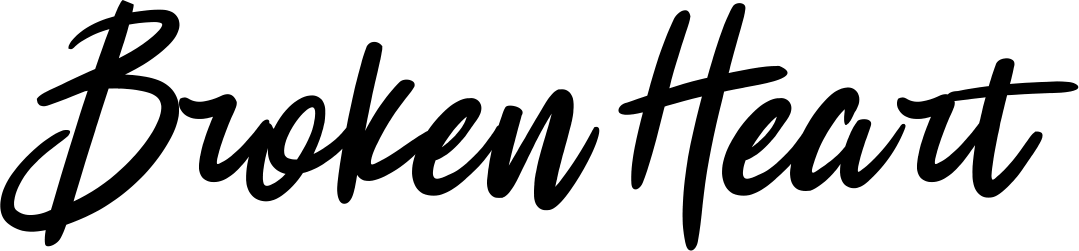
Broken Heart Font
By including only the alphabet and leaving out the punctuations and numbers, Broken Heart gets straight to the point, adding an aesthetic touch to your first-class typography.
This handwritten cursive font reserves a natural and intimate feel that I bet you’ll find useful for plenty of purposes like designing your website, giving friendly vibes to your brand, maintaining elegance as an inseparable quality of your invitations, and anything else. Just note that it might not be very easy to read.